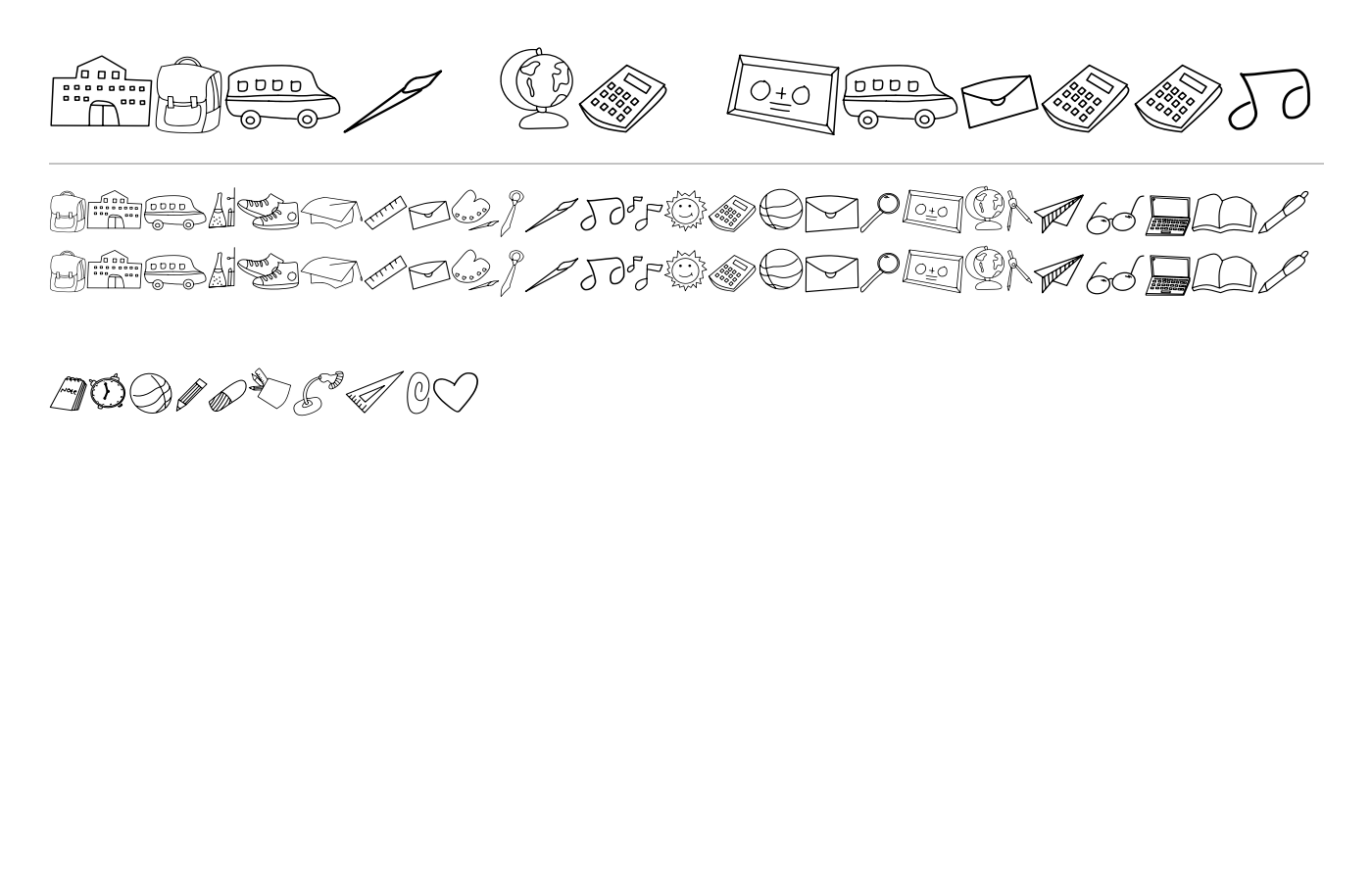
Back to School Font is a playful and whimsical icon-based font featuring hand-drawn school-related illustrations like backpacks, buses, globes, and books. Its casual, outlined style conveys a friendly, approachable mood perfect for children’s educational materials, event flyers, and creative school projects. This font works best for headlines, logos, or decorative elements where a fun, informal touch is desired.
Back to School Font
About Back to School Font
| Font family | Back to School Font |
| Designer | Edy Wiyono |